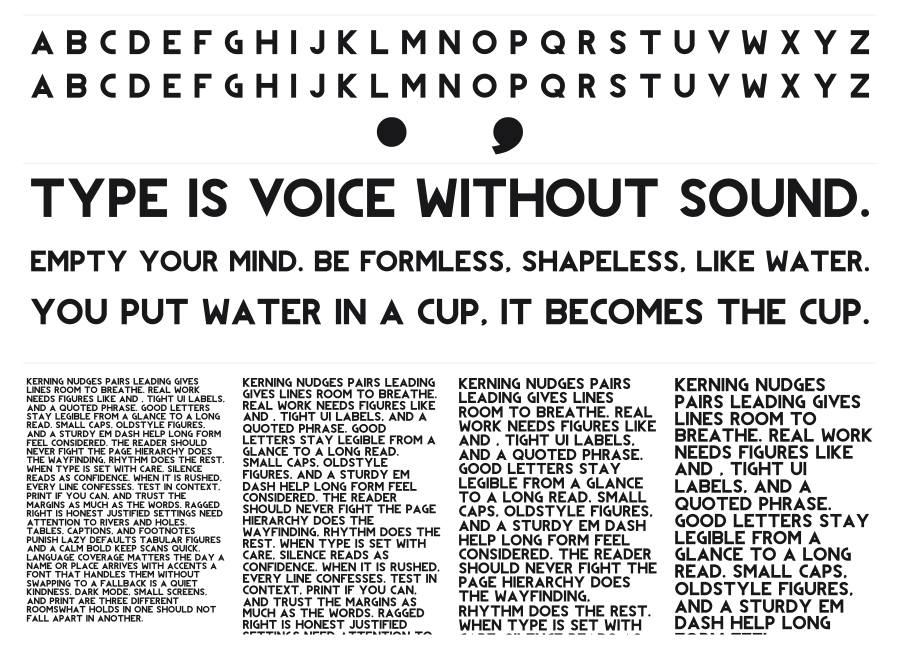
Revolution
Revolution is a bold, wide geometric display face by Saji Johnny Kundukulam with heavy uppercase letterforms built to take up space and hold their ground. The shapes are simple and deliberate, with thick strokes and generous proportions that give every word a sense of physical weight. It's a headline-first typeface, right at home on protest posters, brand identities, and large-format signage where presence is everything.